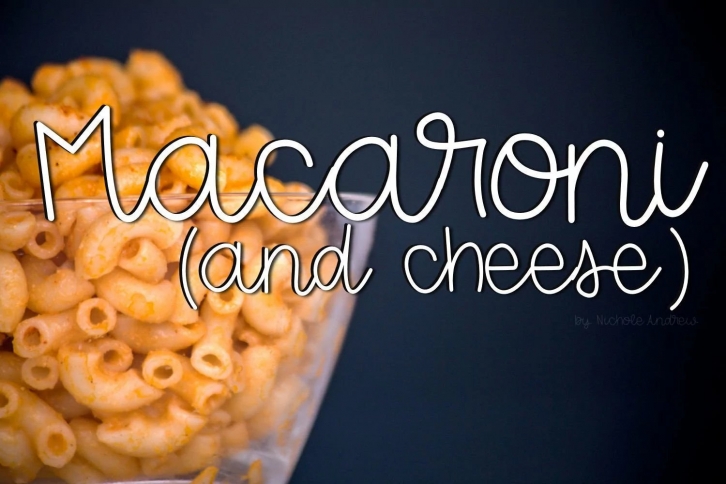
Introducing Macaroni and Cheese, a fun handwritten font. Macaroni and Cheese is a monoline font that is usable for all sorts of projects! Macaroni and Cheese can be used with cut machines and will look great on a variety of projects!